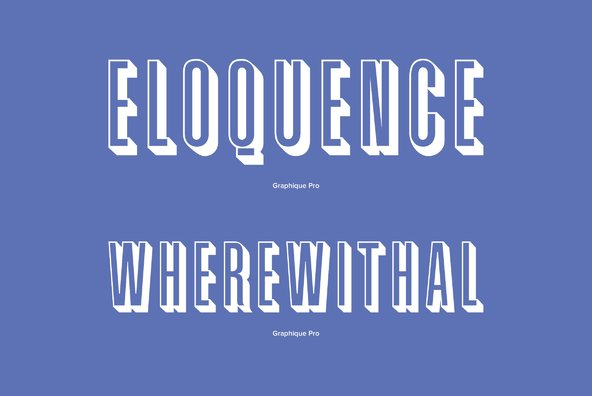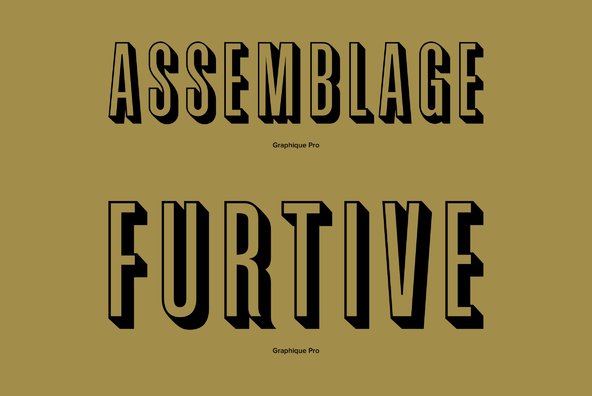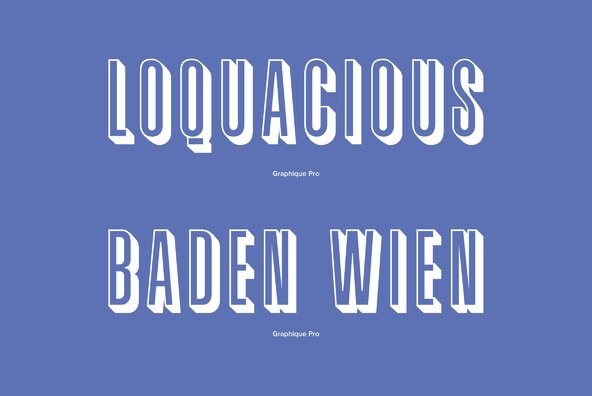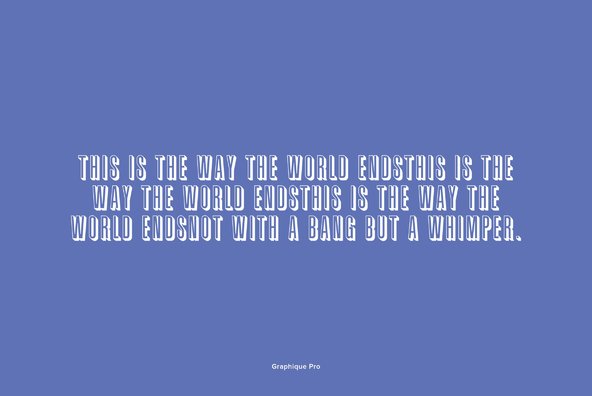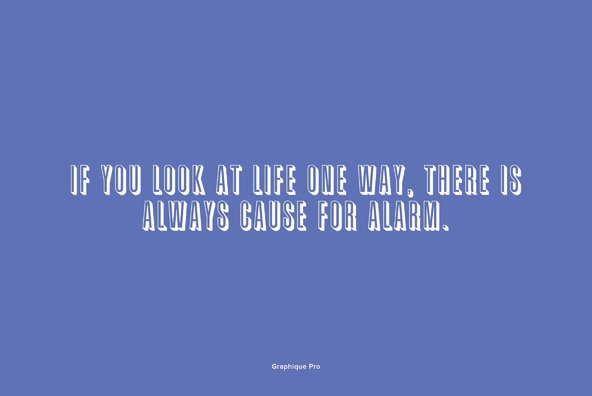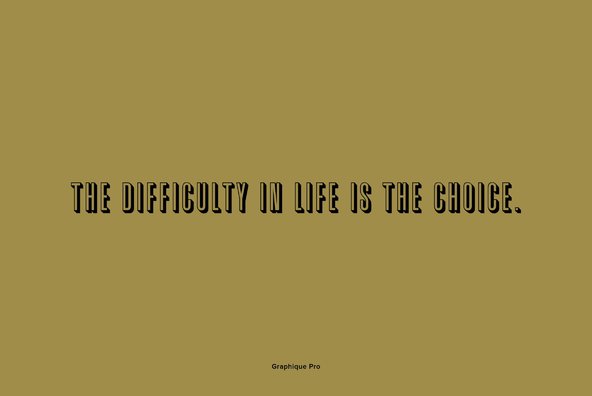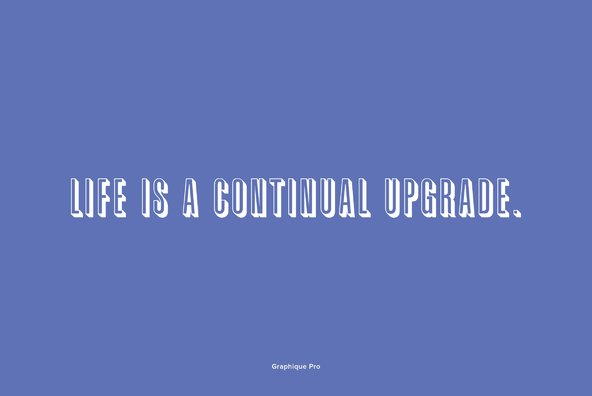
Graphique Pro
Graphique was originally created by Swiss designer Hermann Edenbenz in 1945, and issued as hot metal font by Haas'sche Schriftgieberei, Switzerland. German type designer Ralph M. Unger digitally remastered and expanded the typeface for profonts, and the digital OTF Pro version comprises of more than 400 characters including the complete Latin and Cyrillic glyph sets. Graphique Pro is a Caps-only font as outline shadow, very narrow, very economic, and thus, ideally suited for headlines, posters, signs, CD-covers, book titles and a lot more.